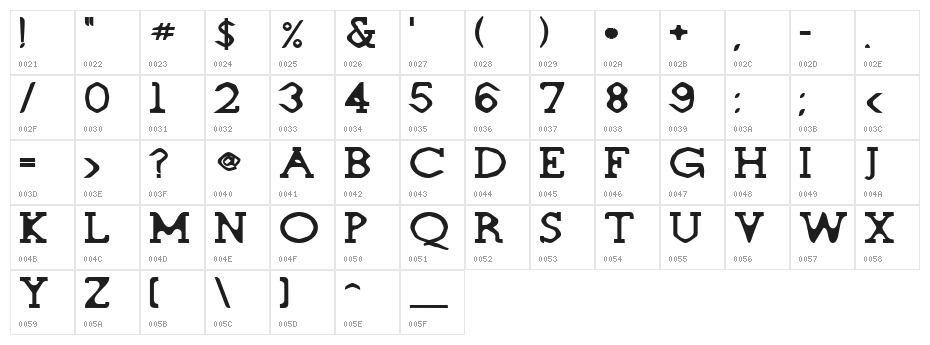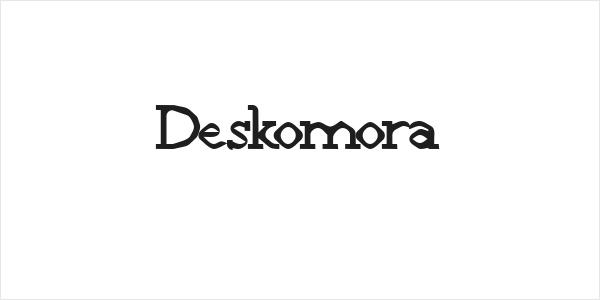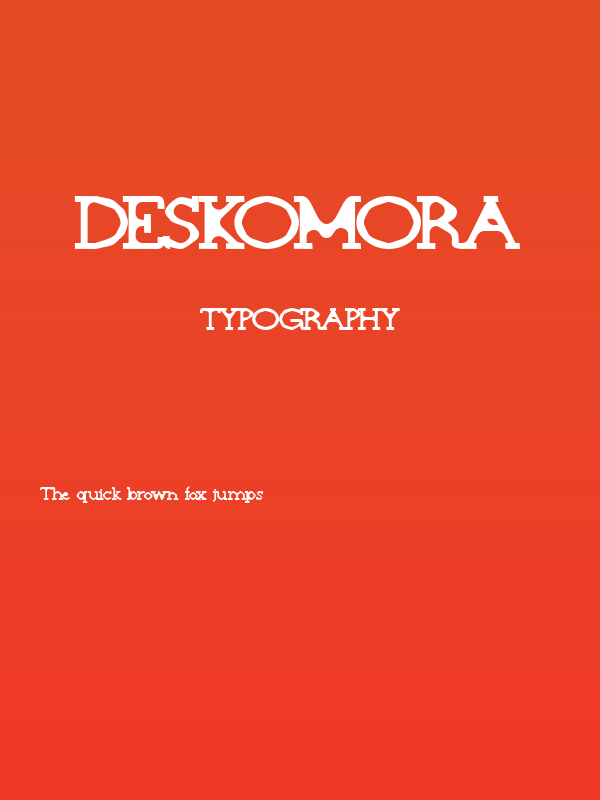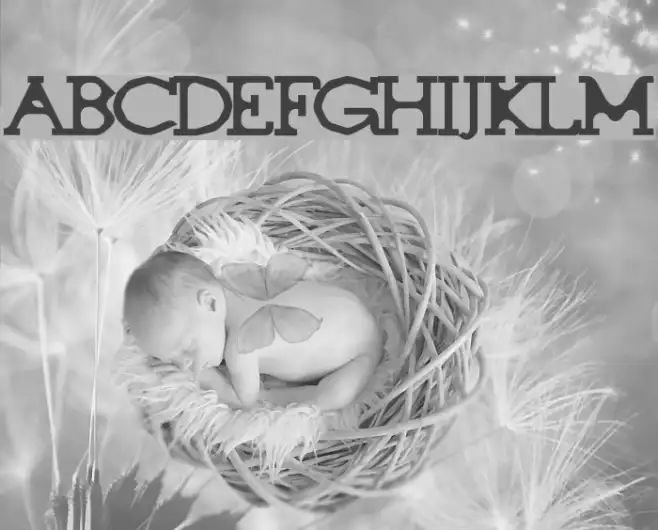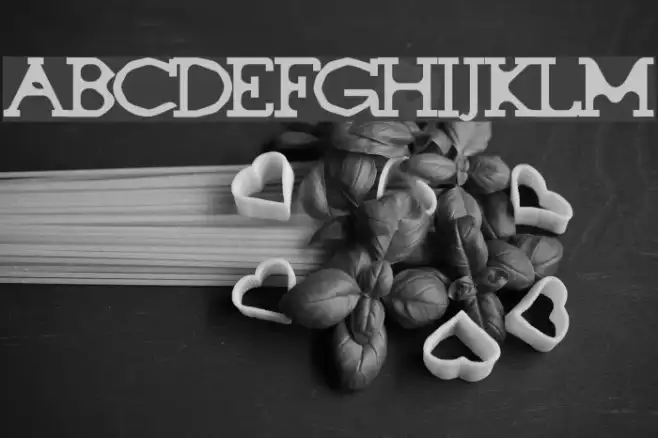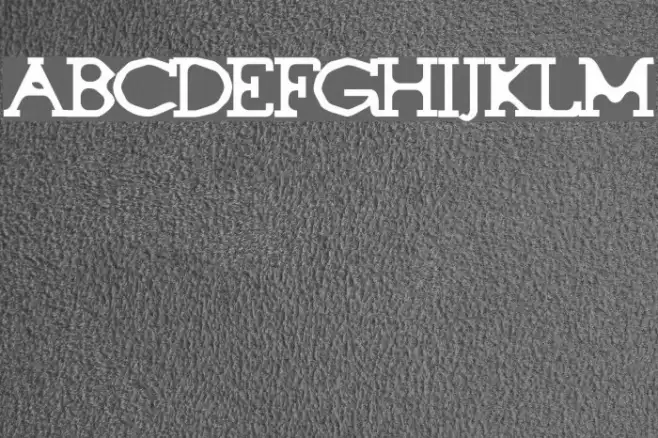
Deskomora Font
Deskomora Description
This font features a bold and striking design with a unique blend of sharp angles and smooth curves, creating a dynamic and eye-catching appearance. The uppercase letters are particularly distinctive, with exaggerated serifs and angular cuts that give them a modern yet slightly vintage feel. The lowercase letters maintain a consistent style, with a playful yet structured form that complements the uppercase set. Numbers and special characters are designed with the same boldness and creativity, ensuring a cohesive look across all elements. The font's strong visual presence makes it ideal for projects that require a standout typeface.
| Overall Style | Modern, Vintage |
| Proposed Projects | Ideal for branding, posters, album covers, and any project needing a bold, creative typeface. |